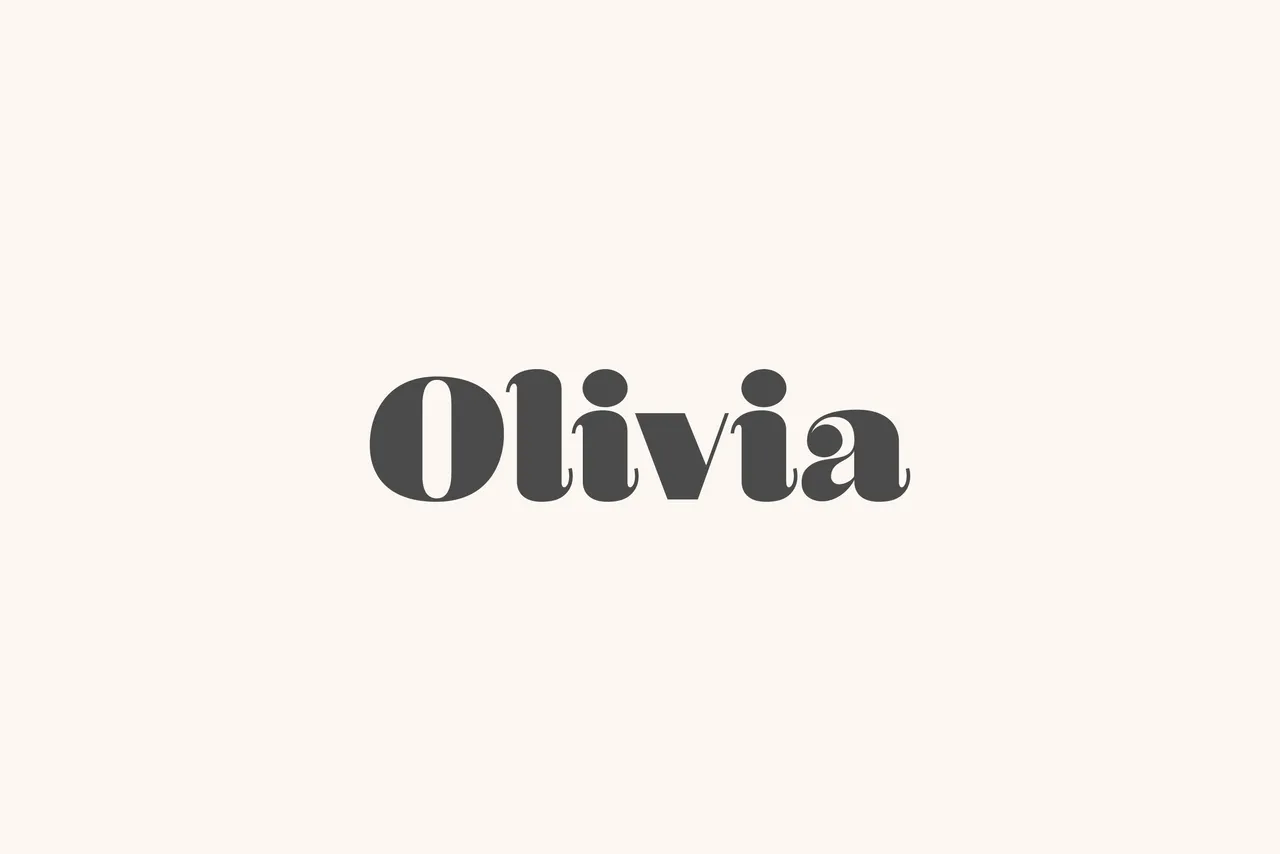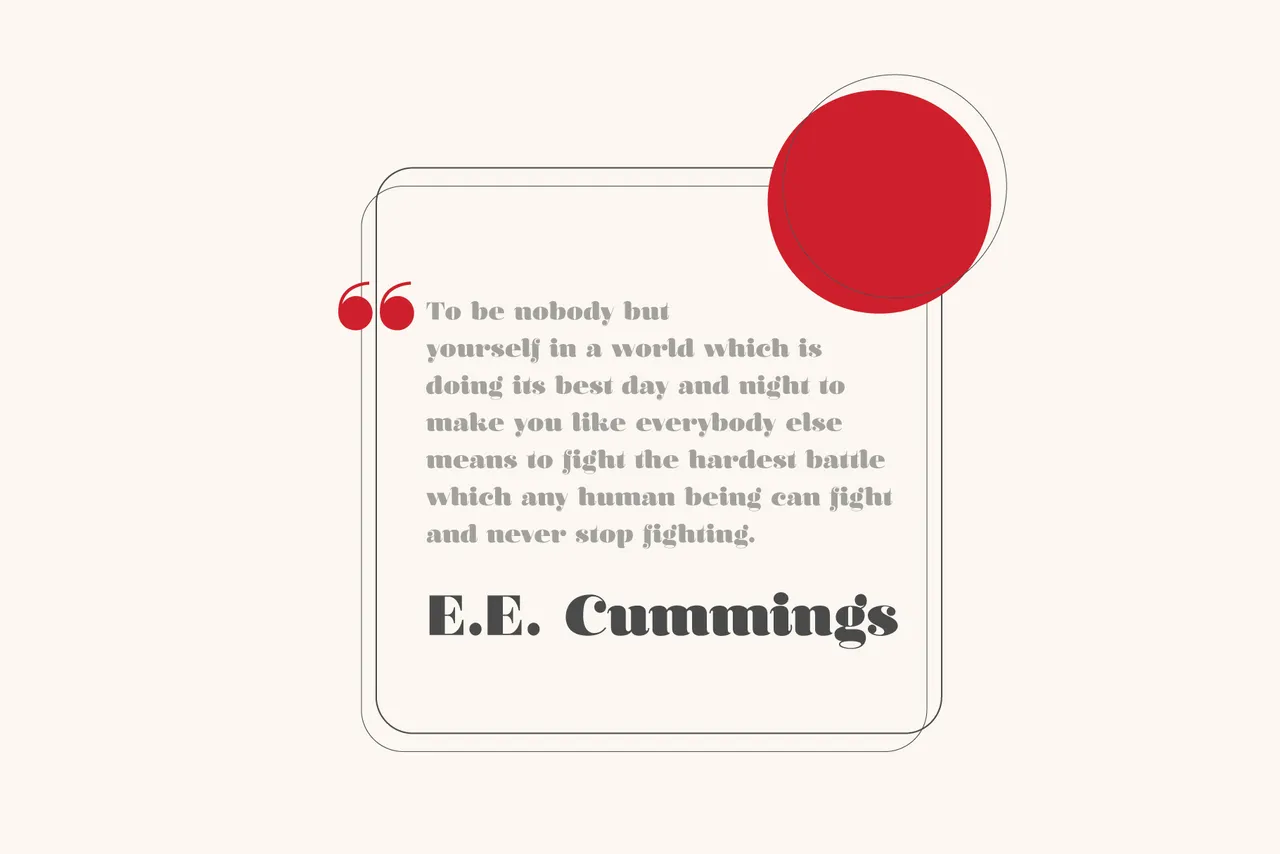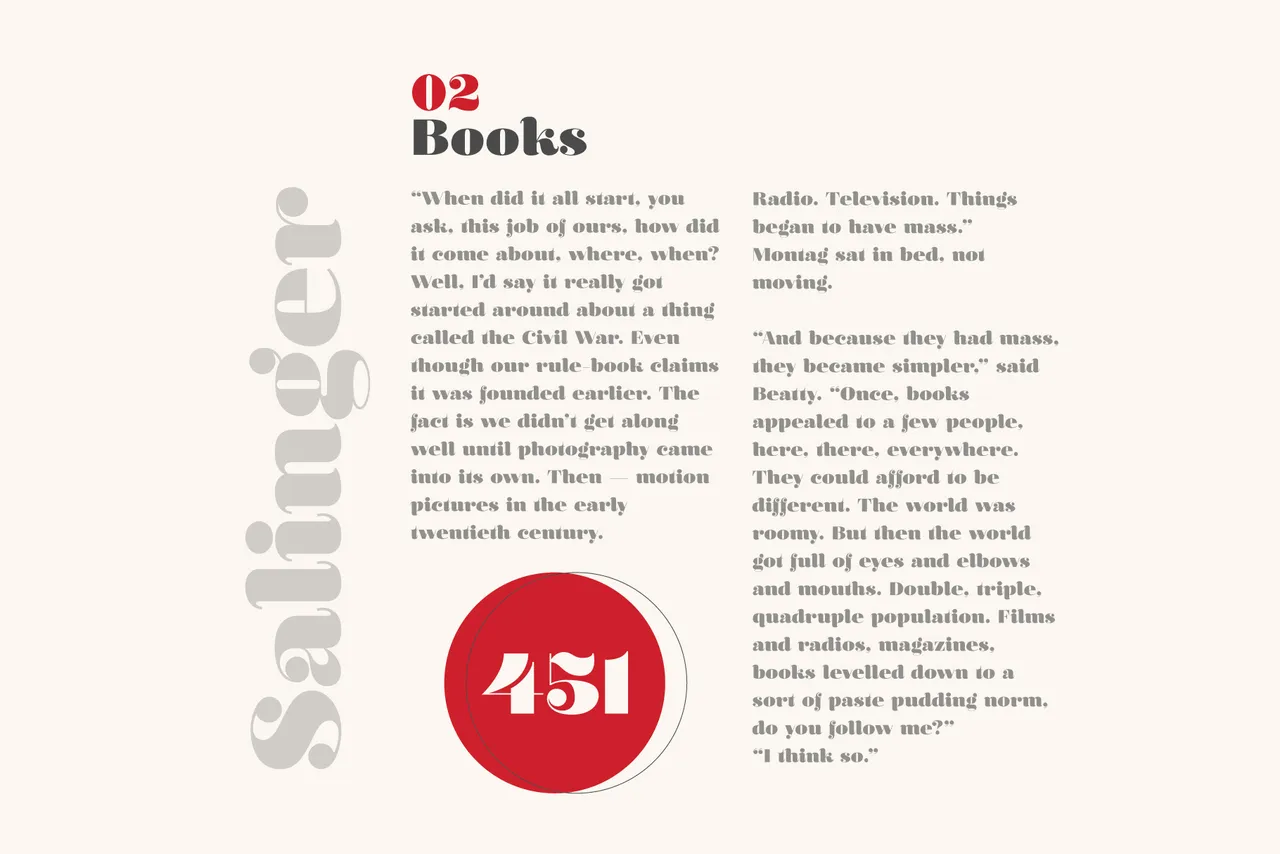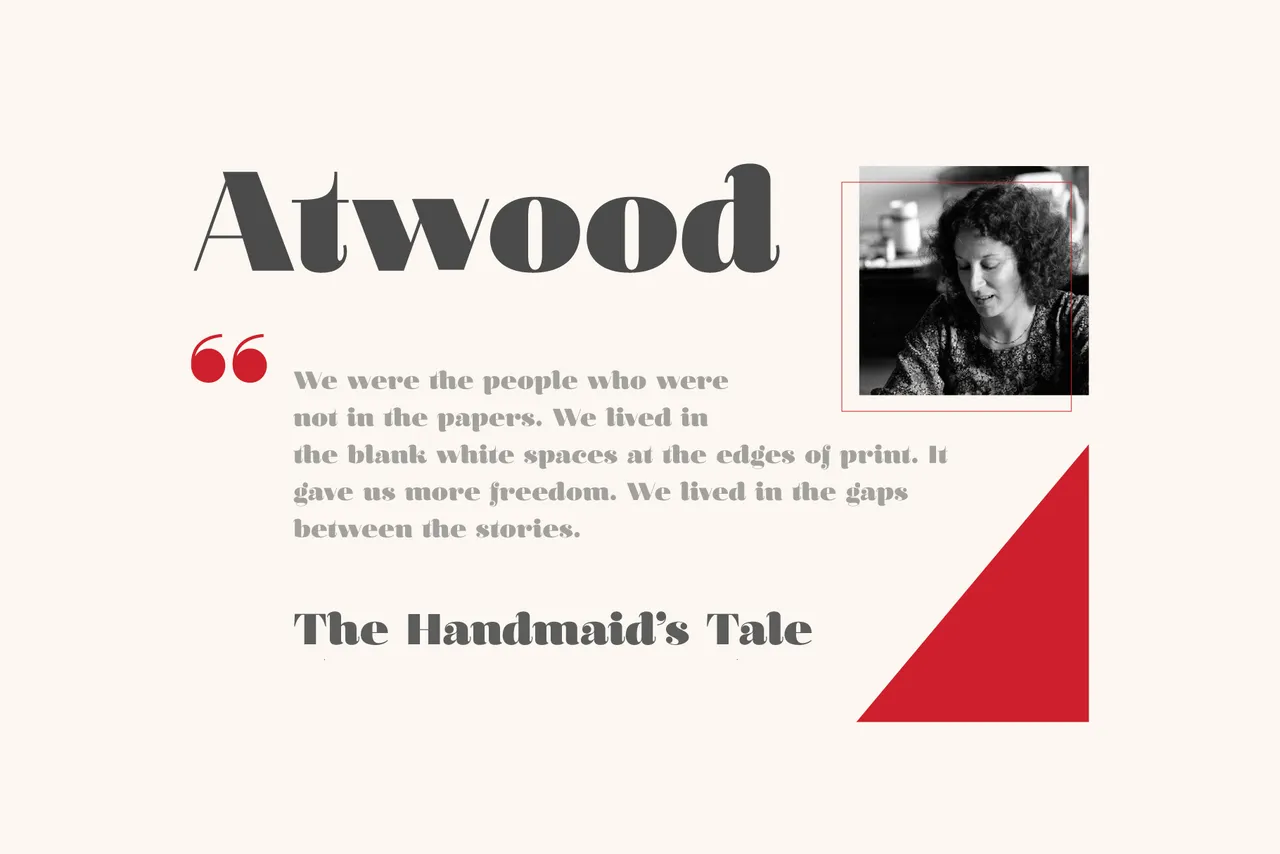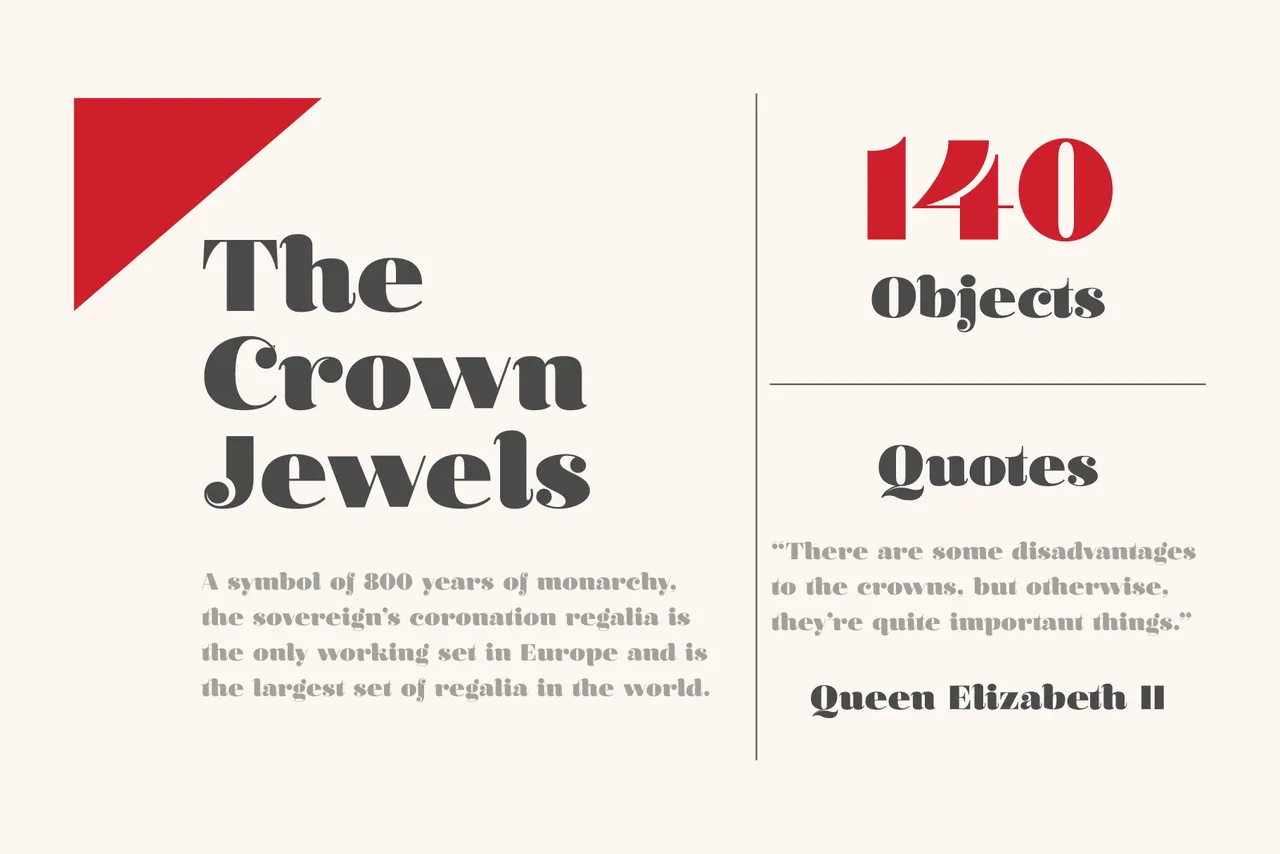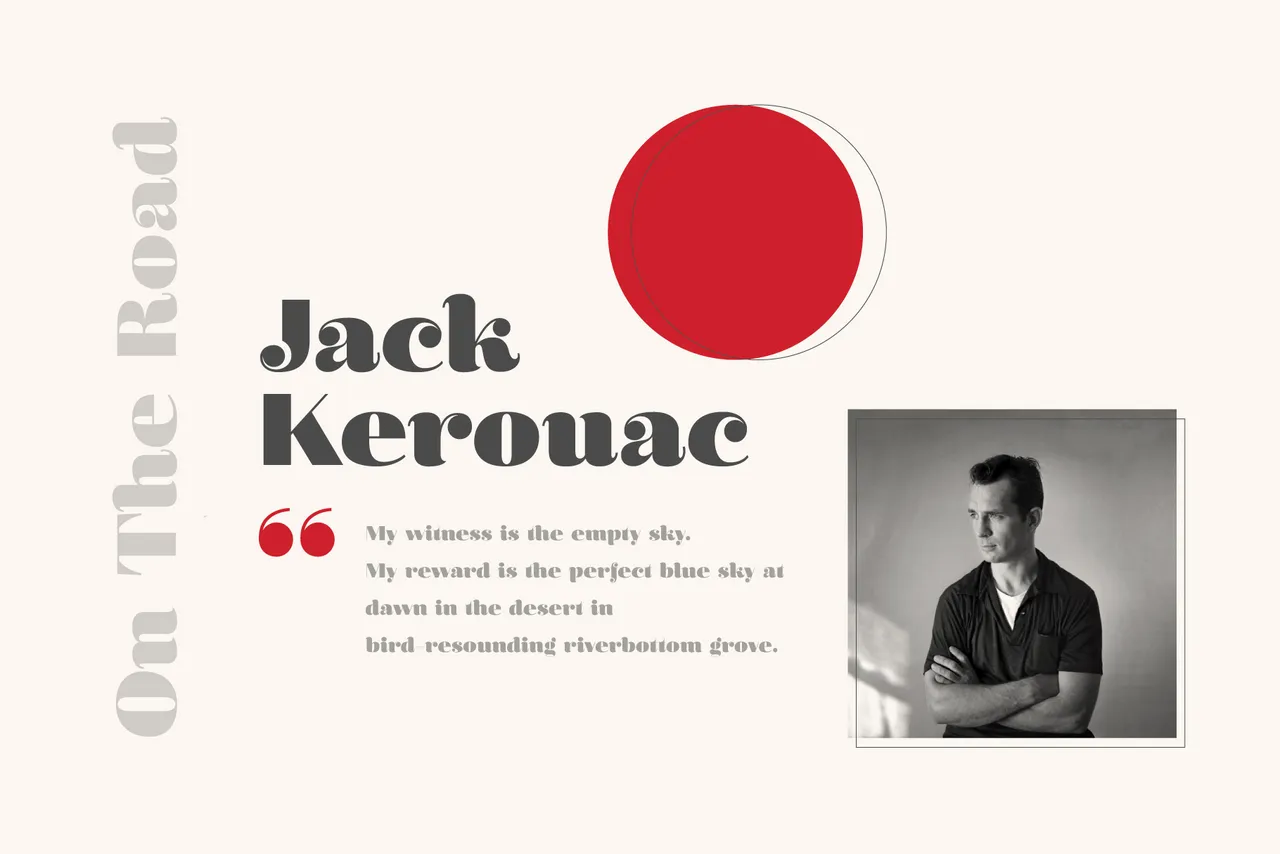
A curvaceous display typeface, like a casual Bodoni—unique versatility makes it perfect for logos, wedding invitations, quotes, branding, book covers, and editorials.
About Olivia
Olivia is a curvaceous display typeface, almost like a casual Bodoni. Create bold, beautiful graphics and gorgeous headlines with a vintage feel. Olivia’s contrasting strokes, wide curves, large x-height, and short tails give your designs personality and a touch of elegance. This unique versatility makes Olivia perfect for logos, wedding invitations, quotes, branding, book covers, and editorials. Olivia’s aesthetic elevates your projects with repeatedly eye-catching whimsy.